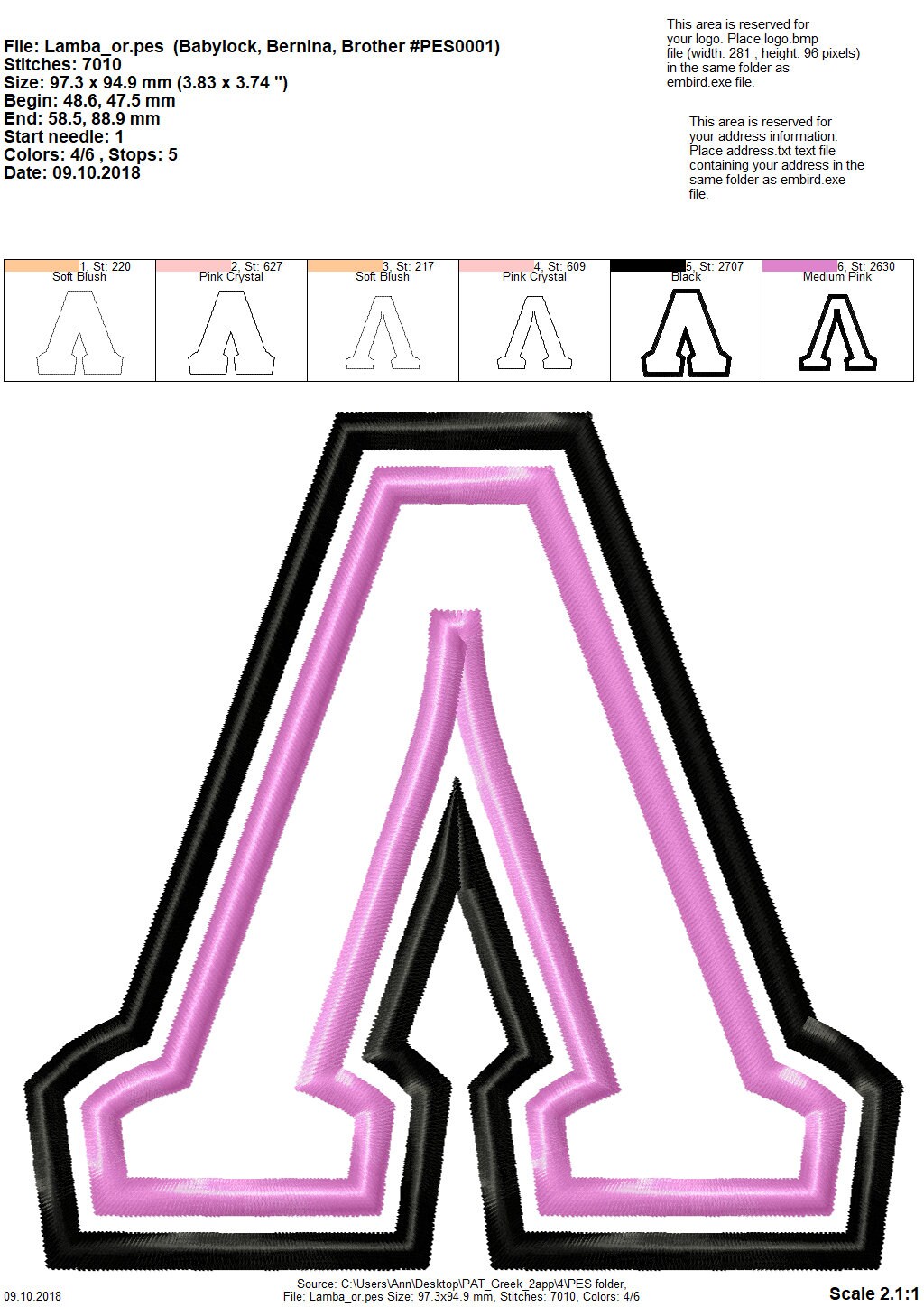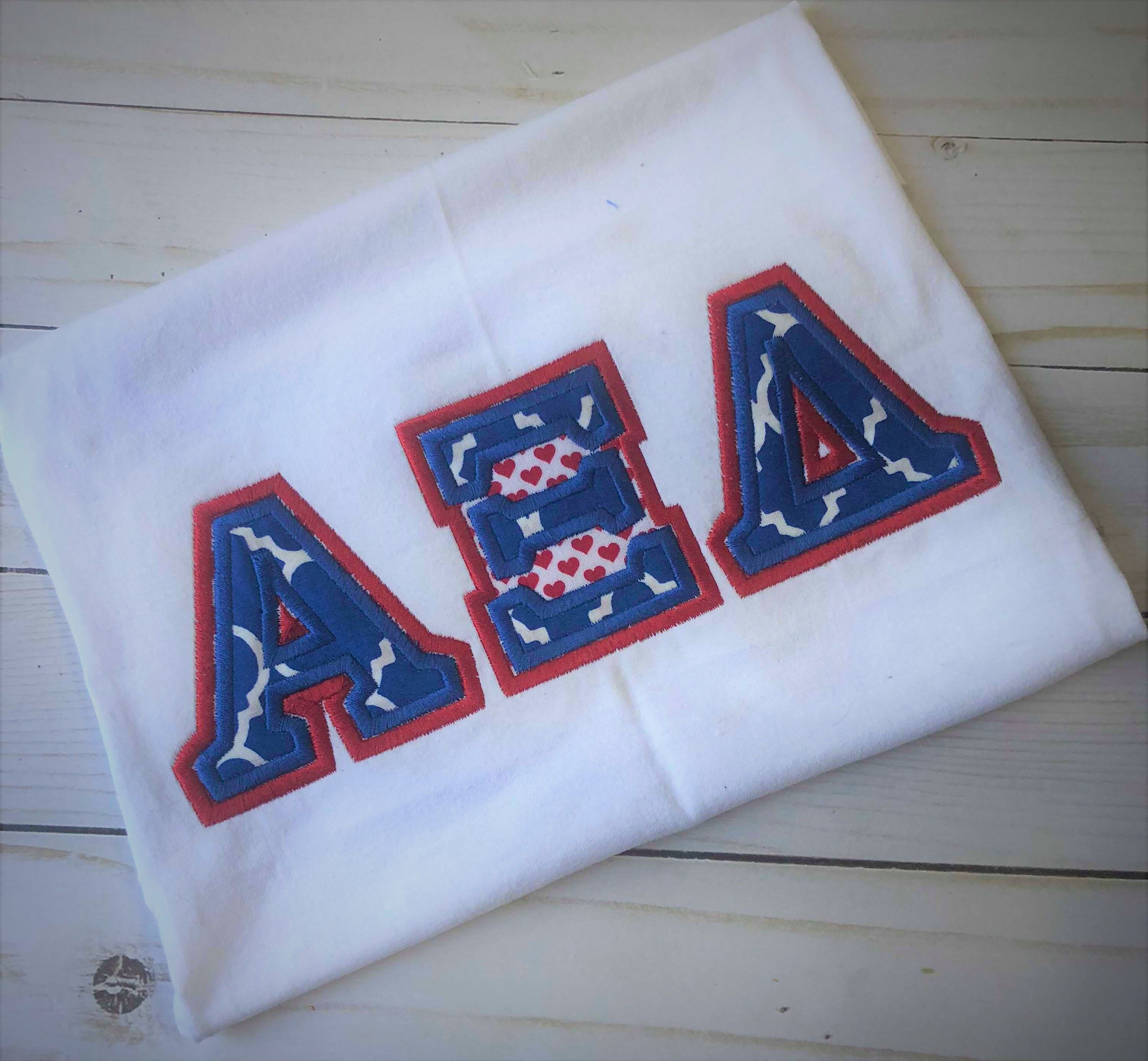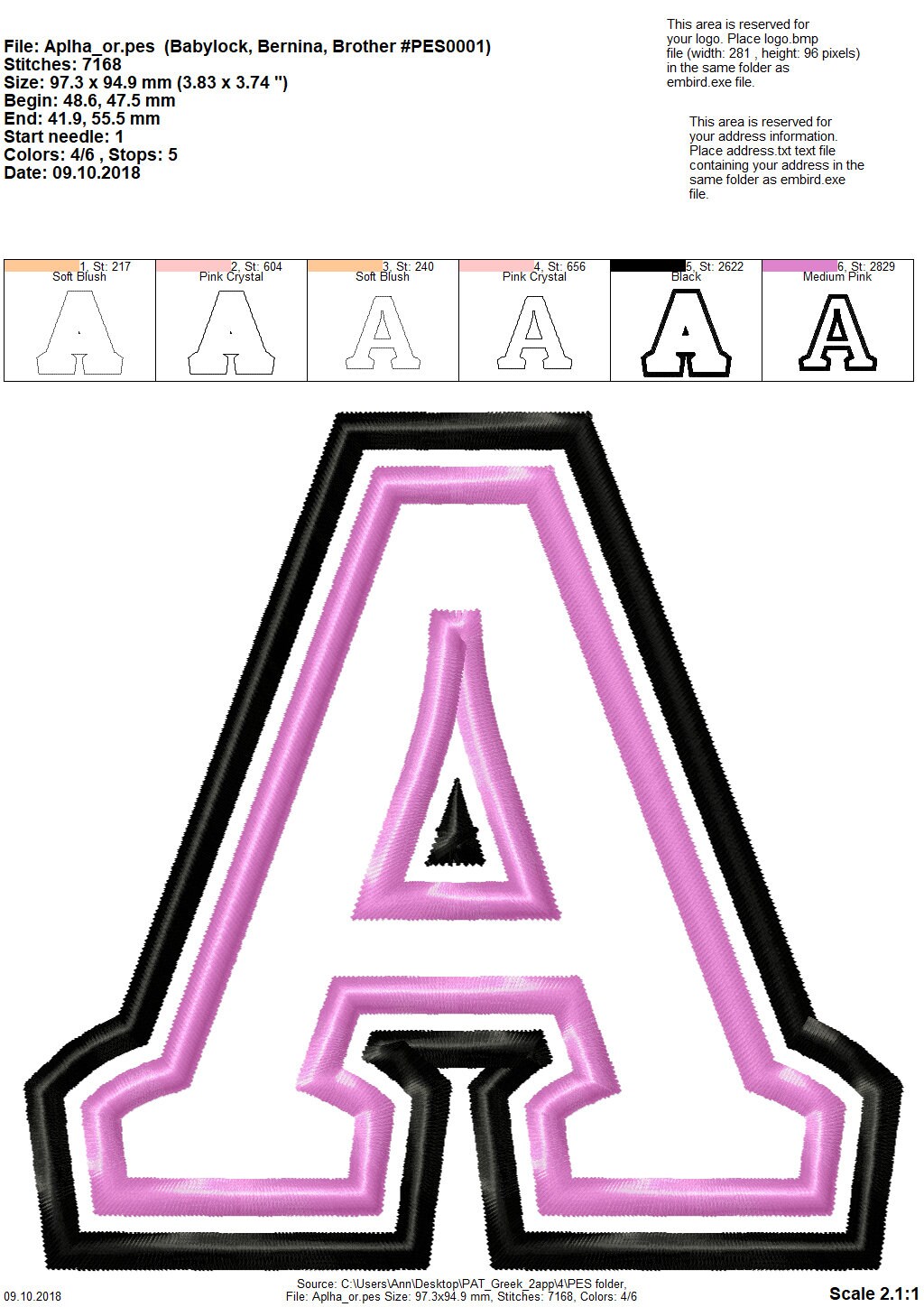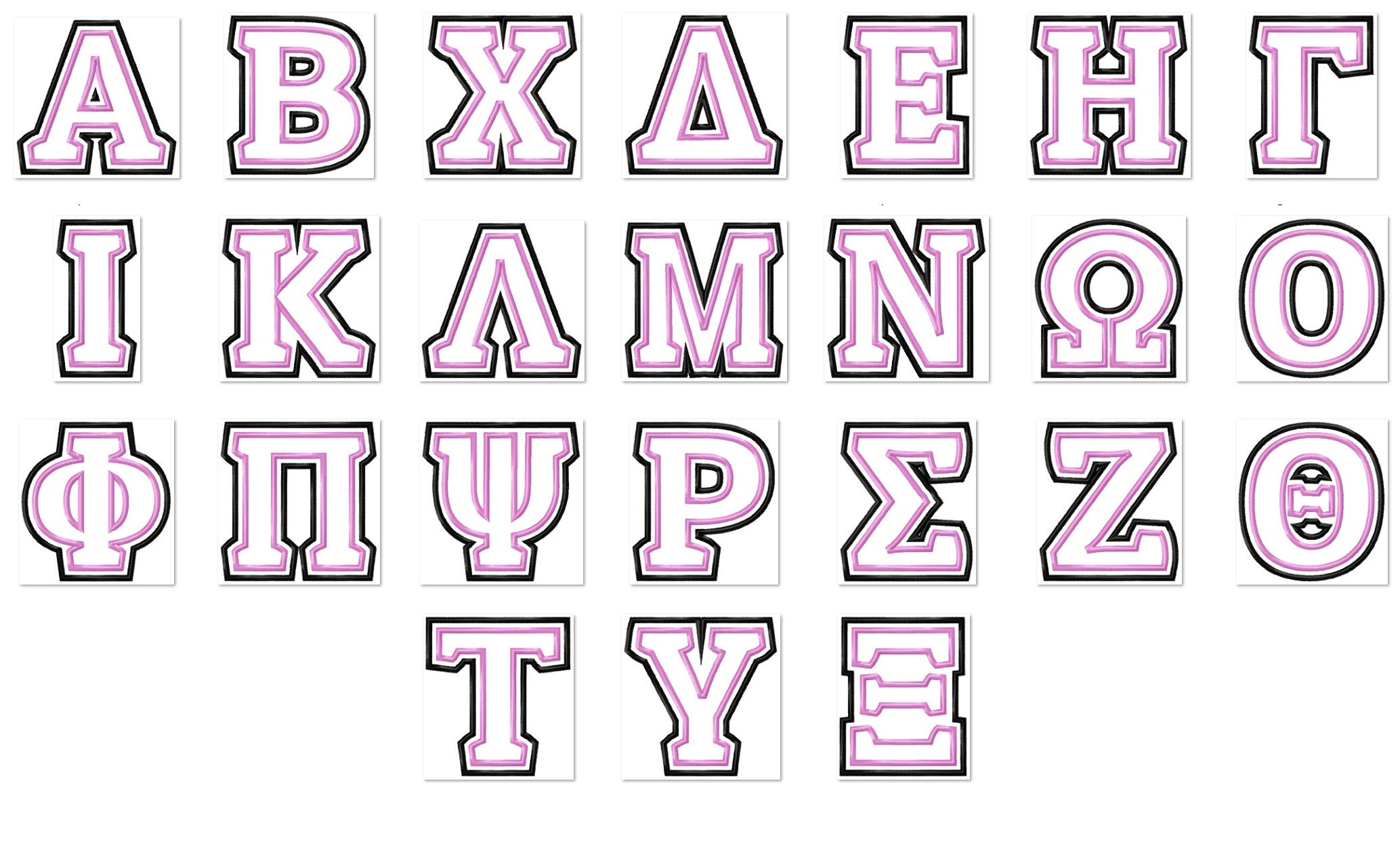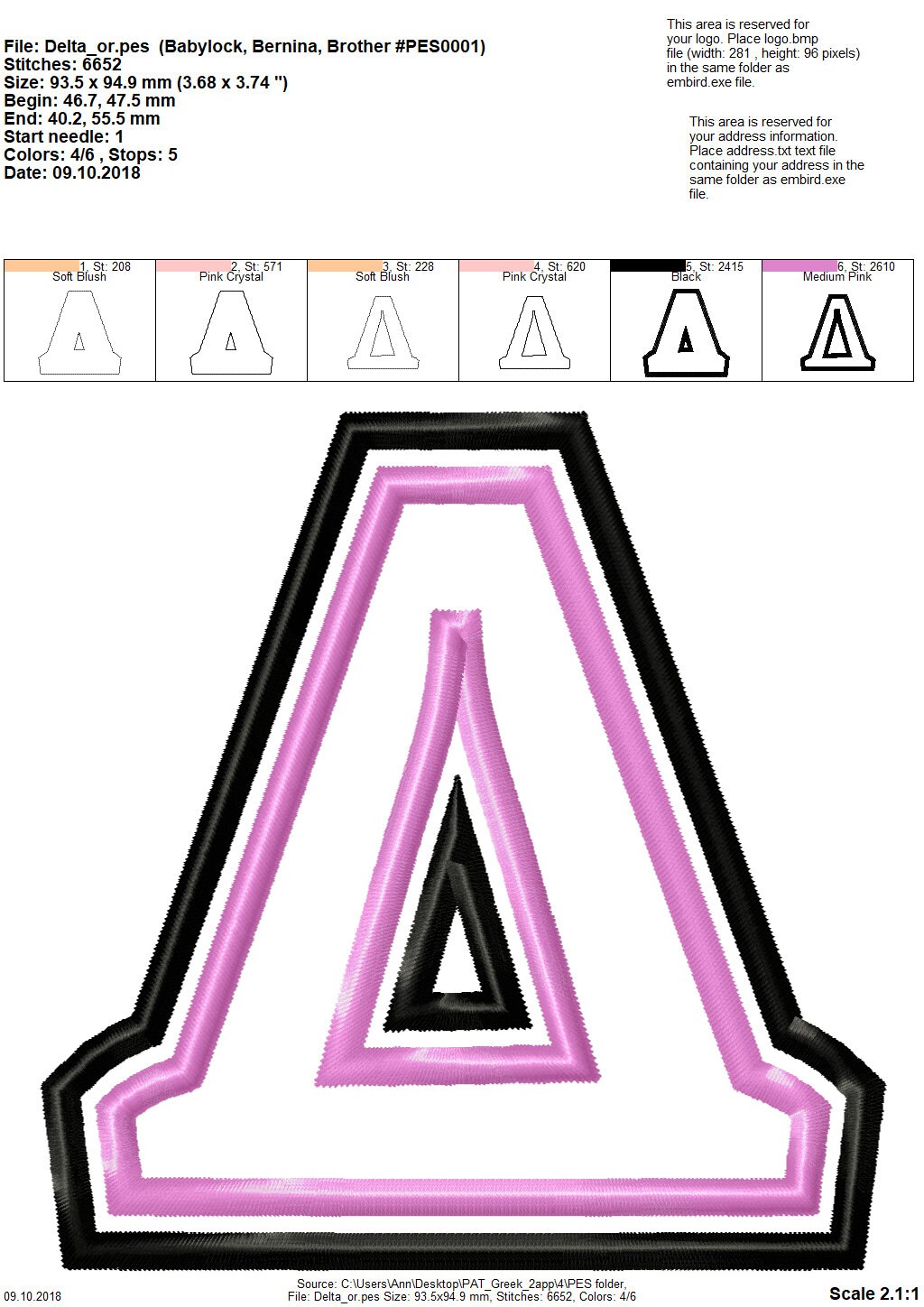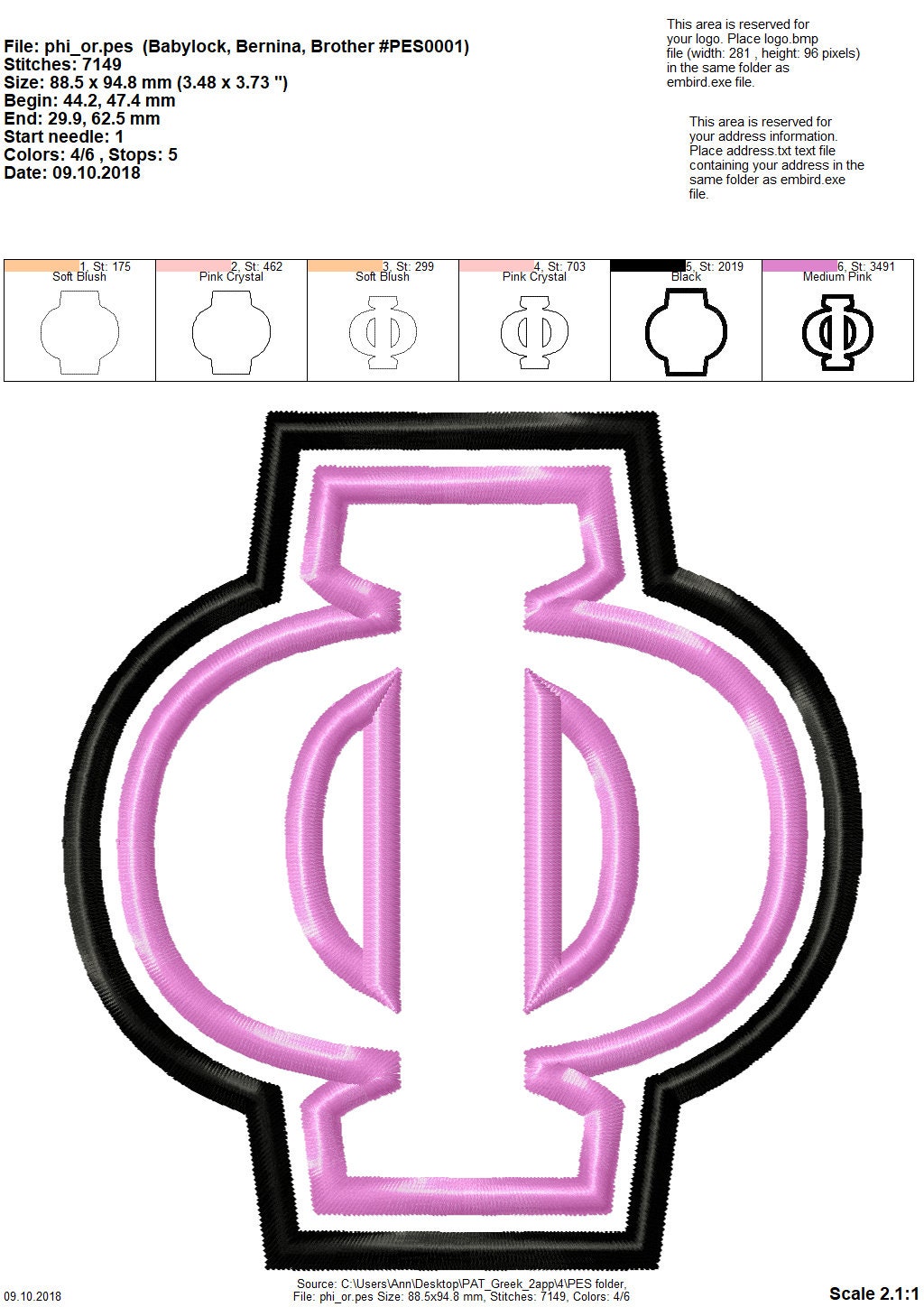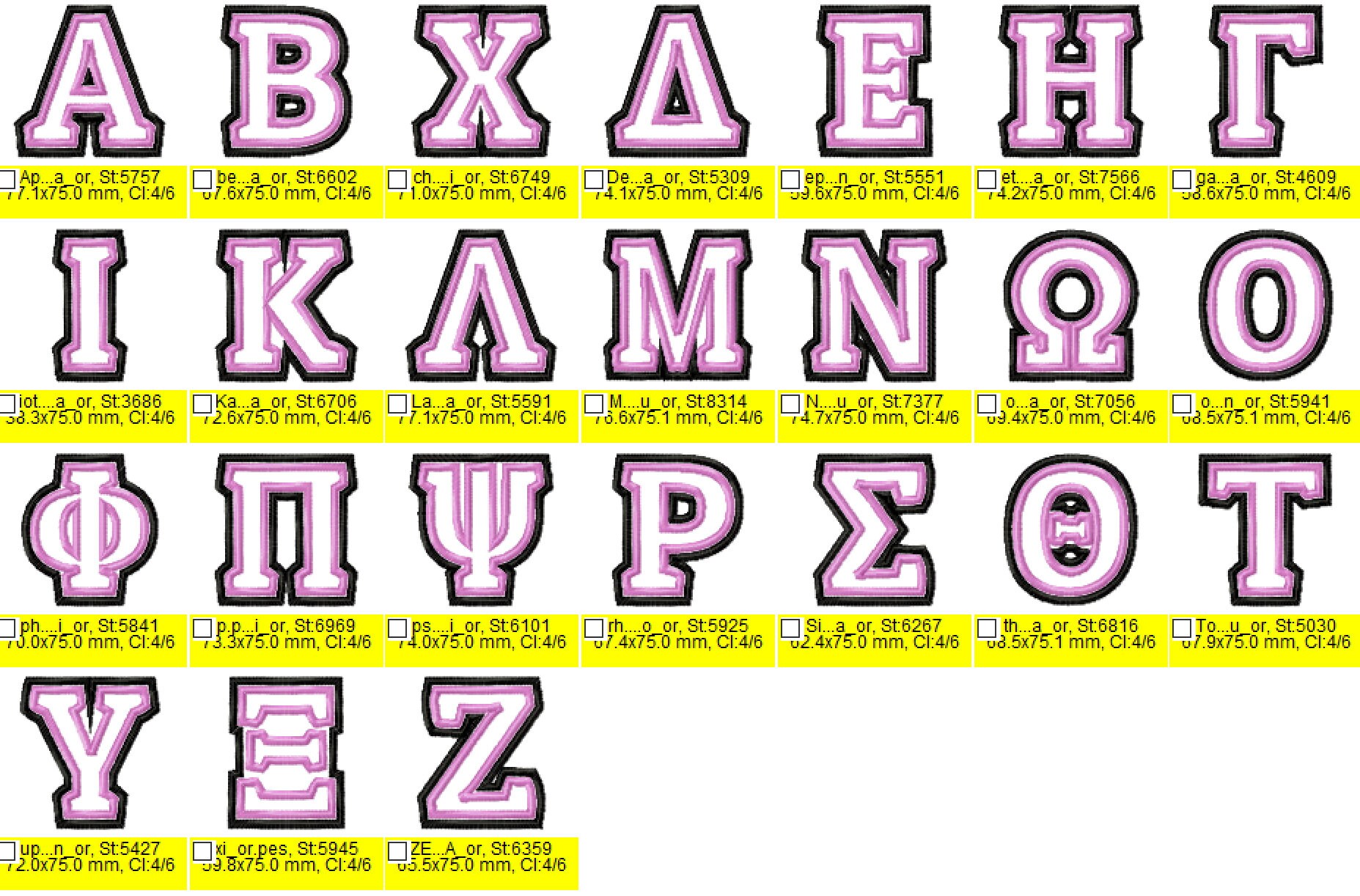
Greek alphabet Double two applique layers Greek Font, alphabet, ABC, letters 2 step colors Greek font machine embroidery designs many sizes
Letters have 2 fabrics applique steps.